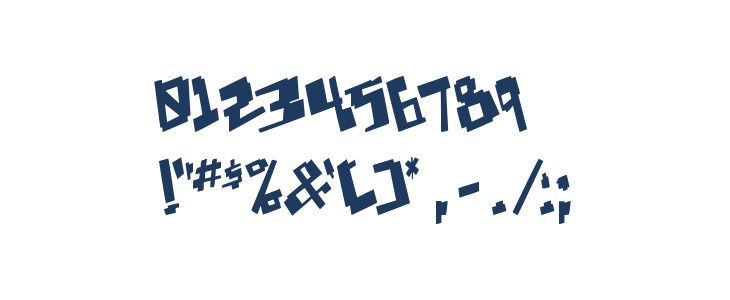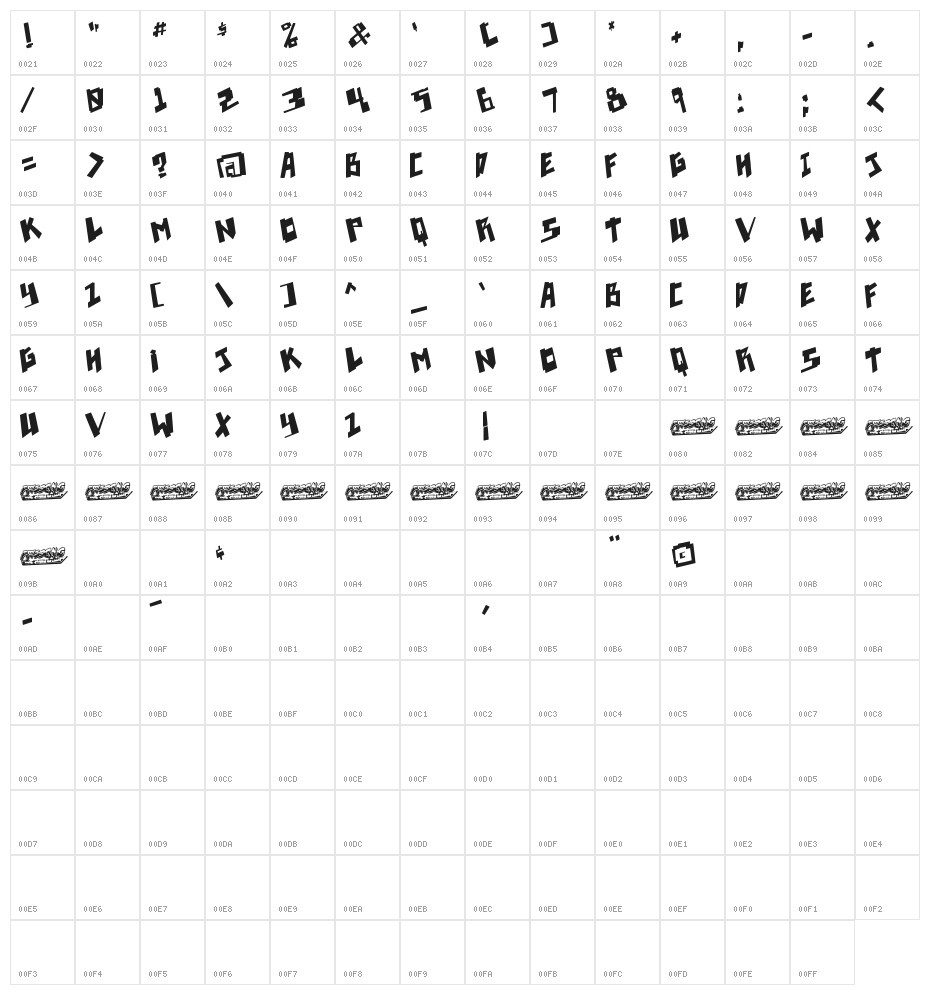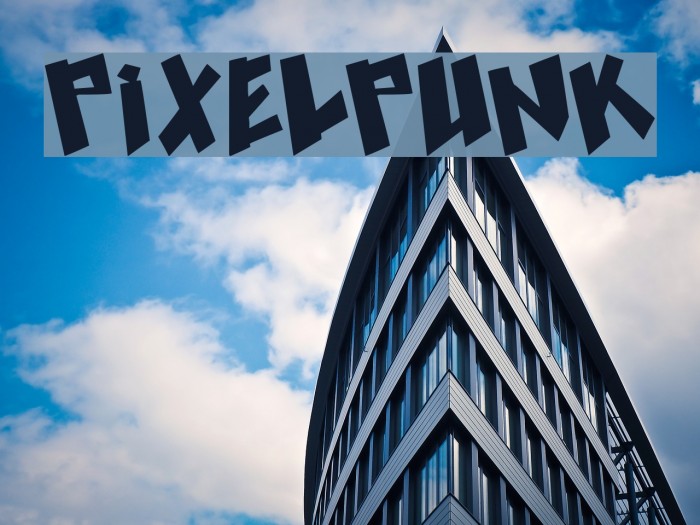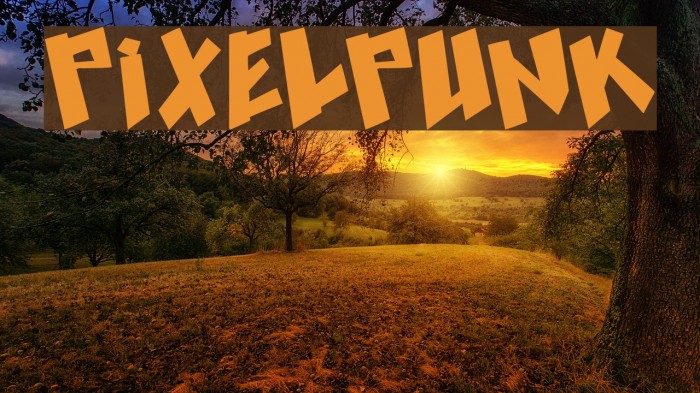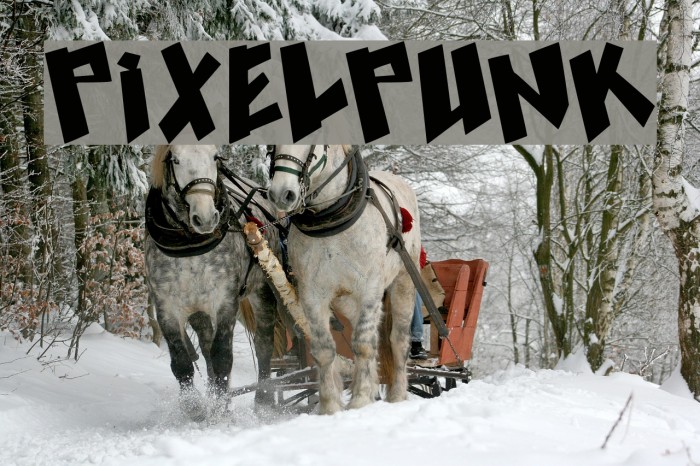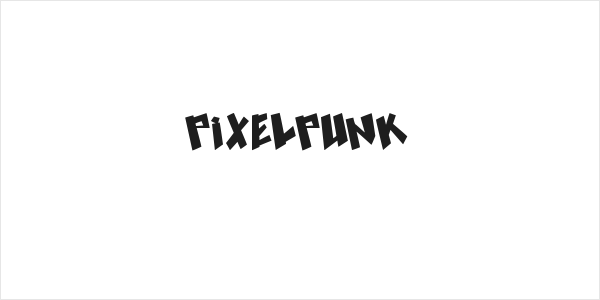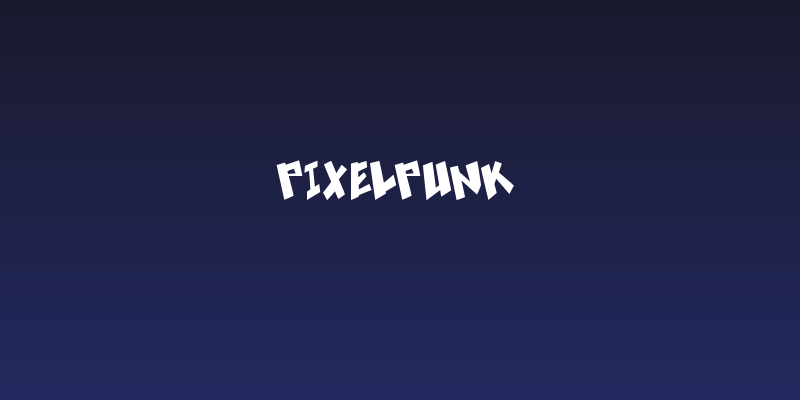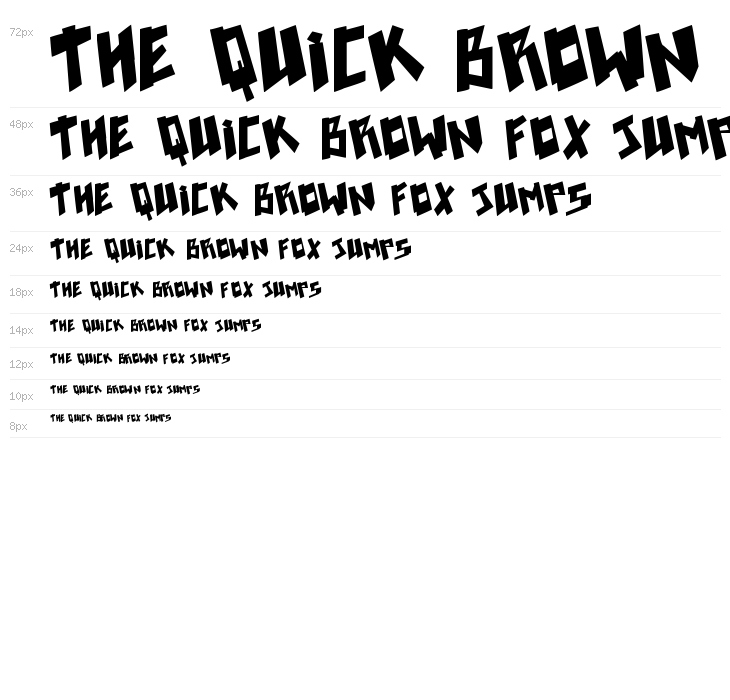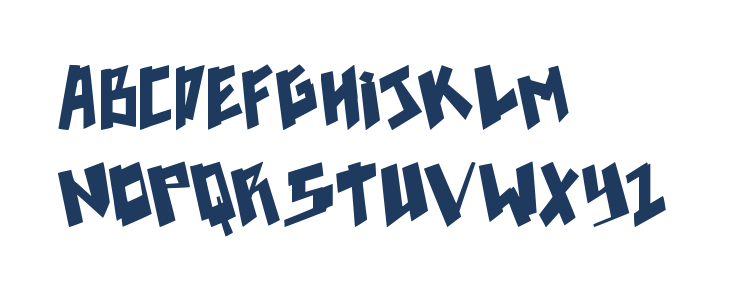
Pixelpunk Font
Pixelpunk Description
This font features a bold, angular design with a distinctly digital and futuristic aesthetic. The characters are heavily stylized, with sharp edges and a blocky appearance that evokes a sense of retro video game graphics. The uppercase and lowercase letters maintain a consistent geometric form, while the numbers and special characters follow the same angular theme. The overall look is striking and attention-grabbing, making it ideal for projects that require a strong visual impact.
| Proposed Projects | Perfect for video game titles, tech-themed posters, and digital art projects. |